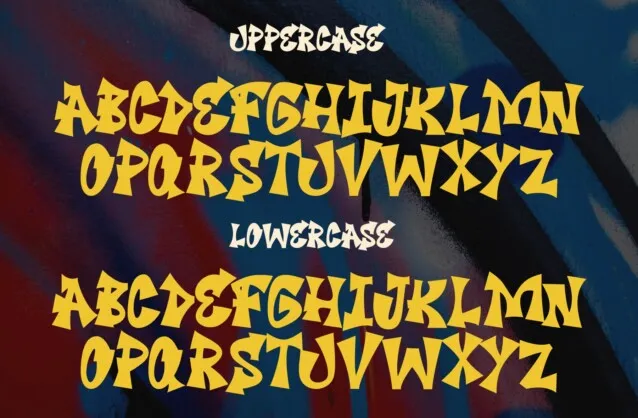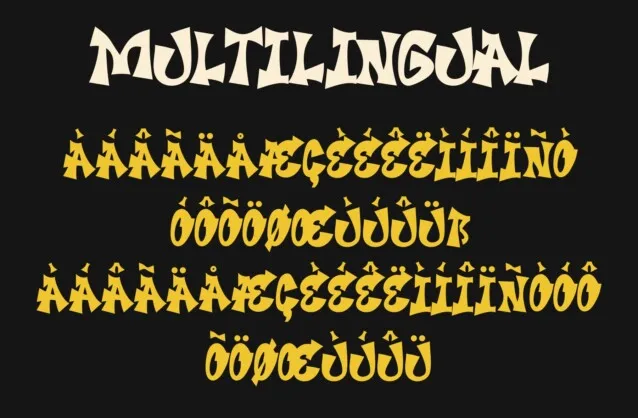
Laskar Font
Laskar Graffiti Font: Urban Style for Bold Designs
Typography plays a crucial role in design, influencing the overall aesthetics and emotional impact of a project. One font that stands out in the world of urban and graffiti-inspired typography is Laskar Font. This laskar graffiti font bold, expressive typeface captures the essence of street art, making it a perfect choice for designers looking to add an edgy and modern touch to their work.
Laskar Graffiti Font
What is Laskar Graffiti Font?
Laskar Font is a graffiti-styled display font designed to bring an authentic street art feel to any project. Featuring bold strokes, sharp angles, and a dynamic flow, this font embodies the rebellious and free-spirited nature of graffiti culture. Whether you are working on a poster, logo, or streetwear branding, Laskar Font provides an eye-catching and energetic aesthetic.
Why Choose Laskar Font for Your Design?
There are several reasons why Laskar Font is a great choice for designers and businesses looking to stand out:
1. Urban & Edgy Aesthetic – The font’s graffiti-inspired design adds a contemporary, street-style edge to any project, making it perfect for urban-themed branding and creative projects.
2. Bold & Eye-Catching – With its thick, expressive strokes, Laskar Font ensures your text grabs attention, making it ideal for headlines, posters, and social media graphics.
3. Versatile Usage – While primarily a display font, Laskar works well in multiple design applications, from logos and branding to clothing designs and product packaging.
4. Enhances Brand Identity – Businesses looking to create a unique and memorable identity can use Laskar Font to convey creativity, boldness, and an urban lifestyle.
Best Uses of Laskar Graffiti Font
Due to its strong personality and distinct style, Laskar Font is perfect for a variety of design projects, including:
• Posters & Flyers – Its bold, graffiti-like strokes make it ideal for event promotions, music posters, and urban-themed campaigns.
• Streetwear Branding – Perfect for t-shirt designs, hoodies, and accessories that embrace the raw, artistic essence of street culture.
• Logos & Branding – Companies looking for a rebellious and modern identity can use Laskar Font to create unique logos that stand out.
• Social Media Graphics – Make posts and advertisements pop with this high-impact font that immediately draws attention.
• Skateboard & Urban Art – A great choice for skateboard decks, murals, and graffiti-related artwork, aligning with the street art movement.
How to Use Laskar Font Effectively
To make the most out of Laskar Font, follow these design tips:
• Pair it with Simple Fonts – Since Laskar is bold and intricate, balance it with simpler sans-serif or serif fonts for a professional look.
• Use High-Contrast Colors – Bright, high-contrast colors enhance the font’s visibility and impact, making your design more striking.
• Incorporate Urban Elements – Adding street-style textures, spray-paint effects, or grunge backgrounds can amplify the graffiti vibe.
• Avoid Overuse – While Laskar is powerful, using it excessively in a single design can make it overwhelming. Use it strategically for headlines or key design elements.
Final Thoughts